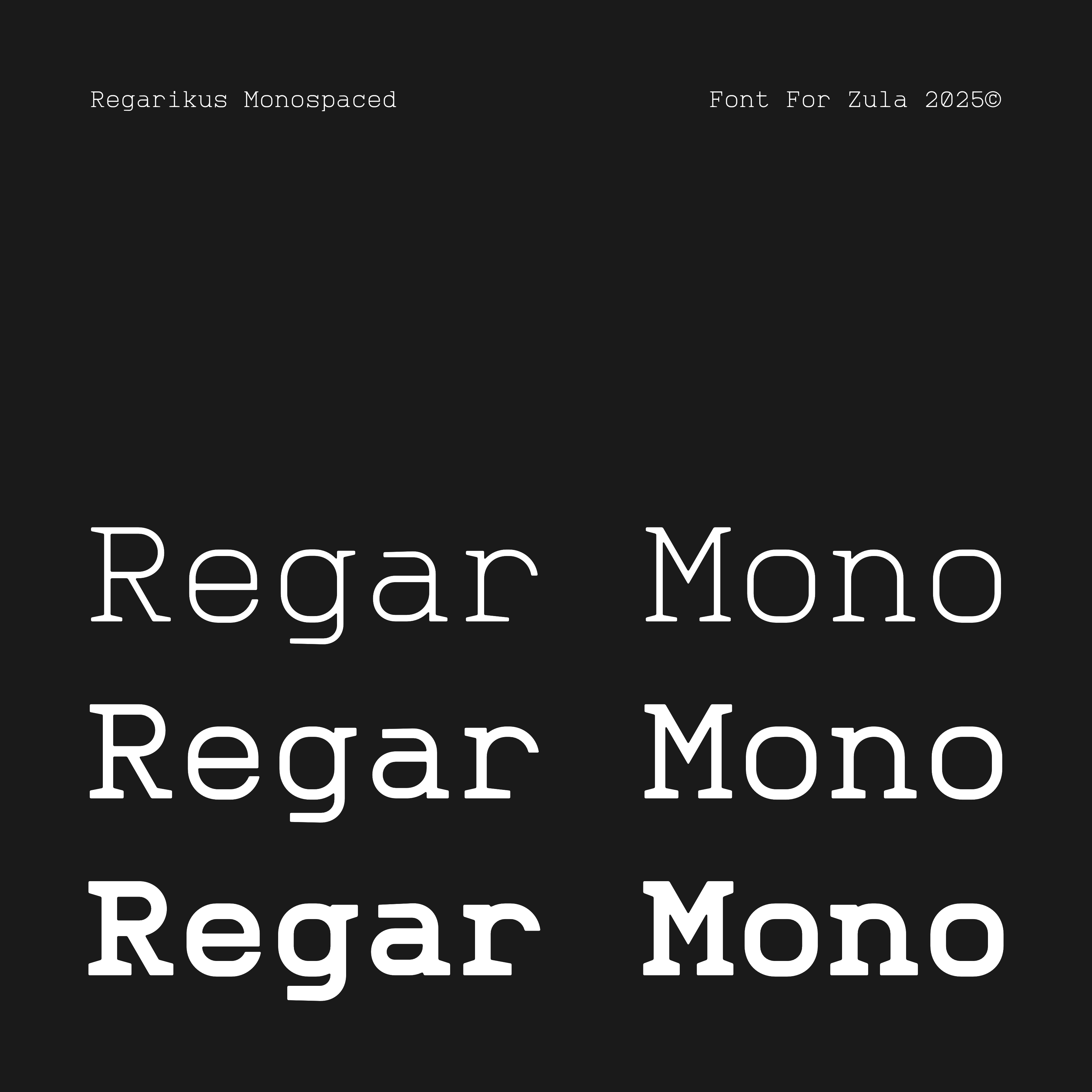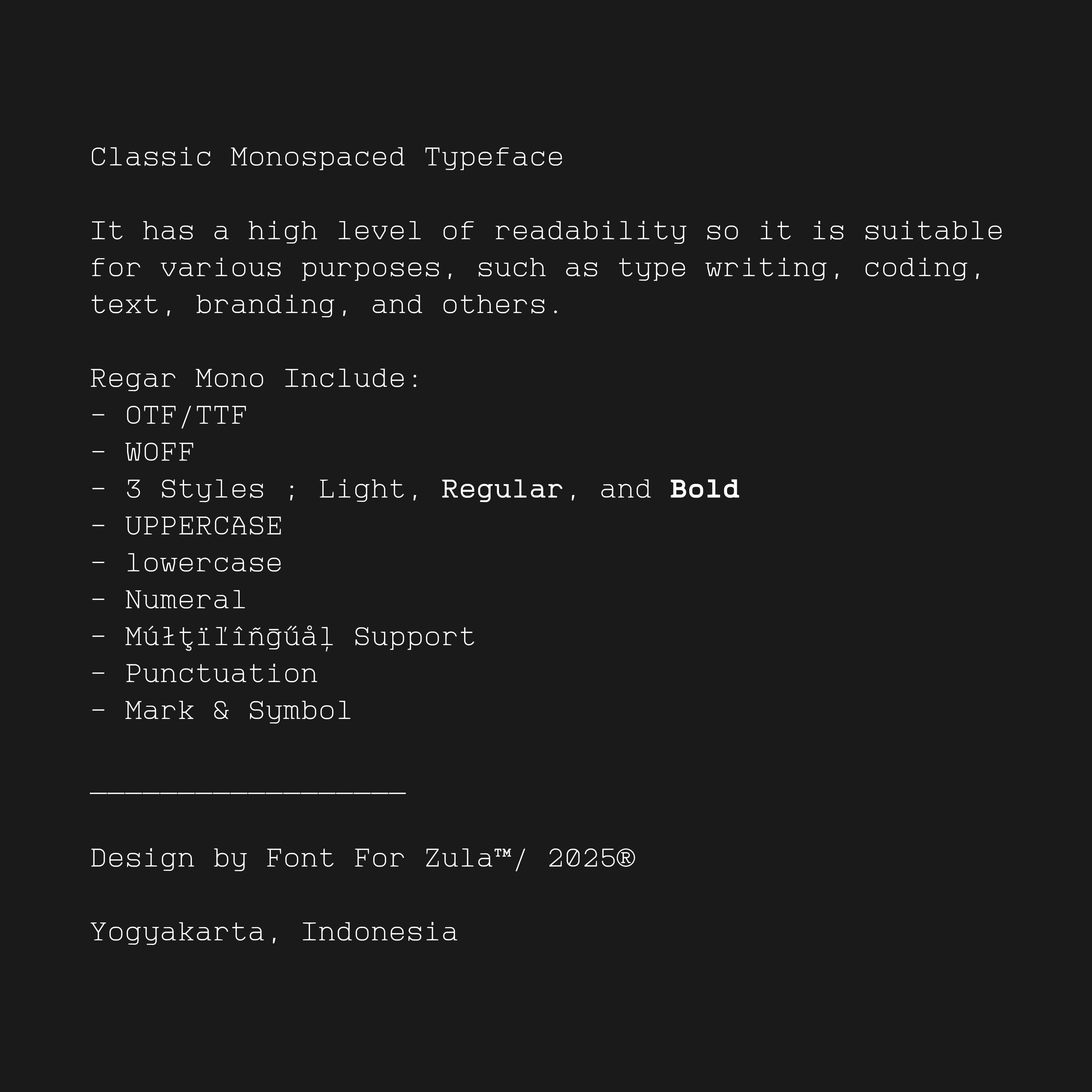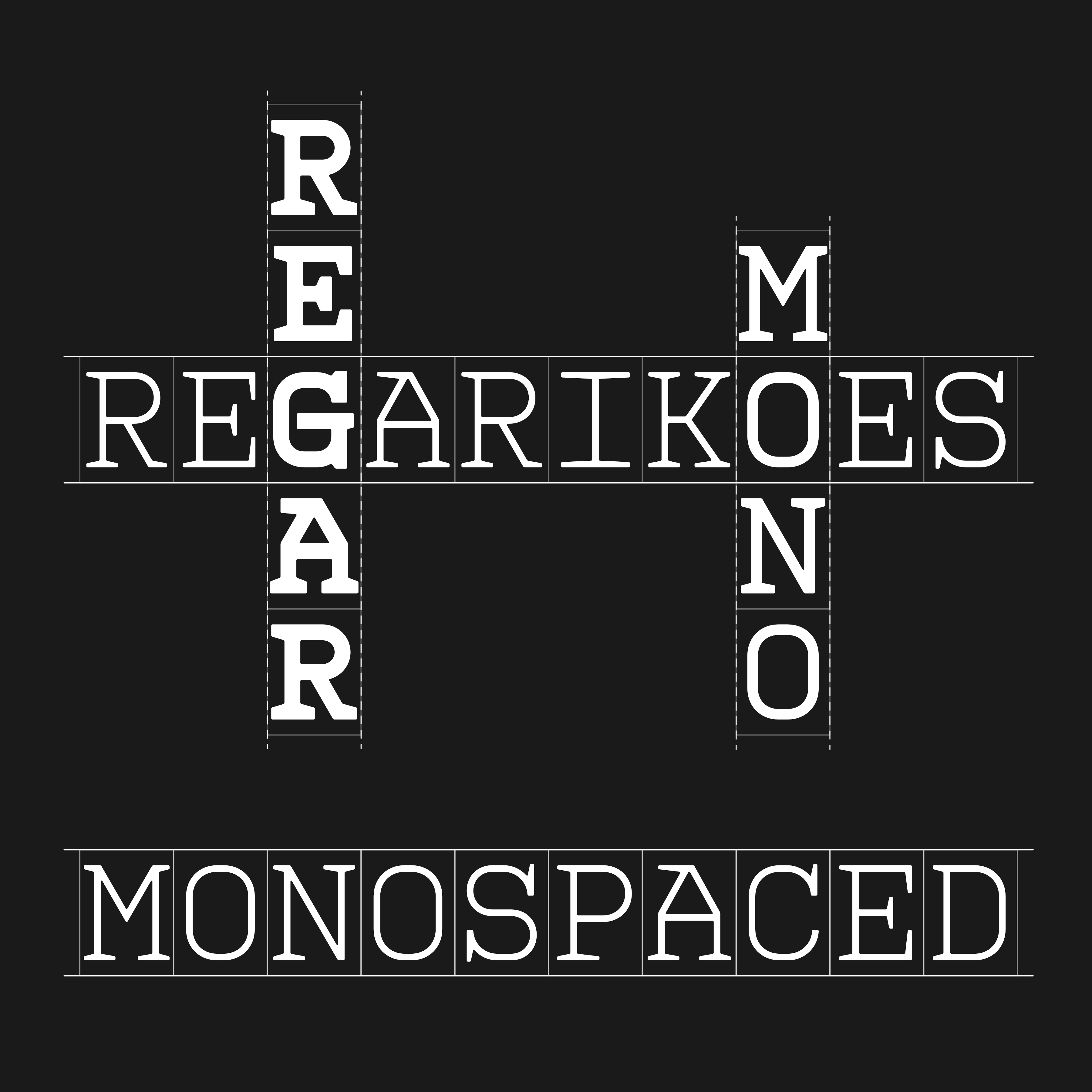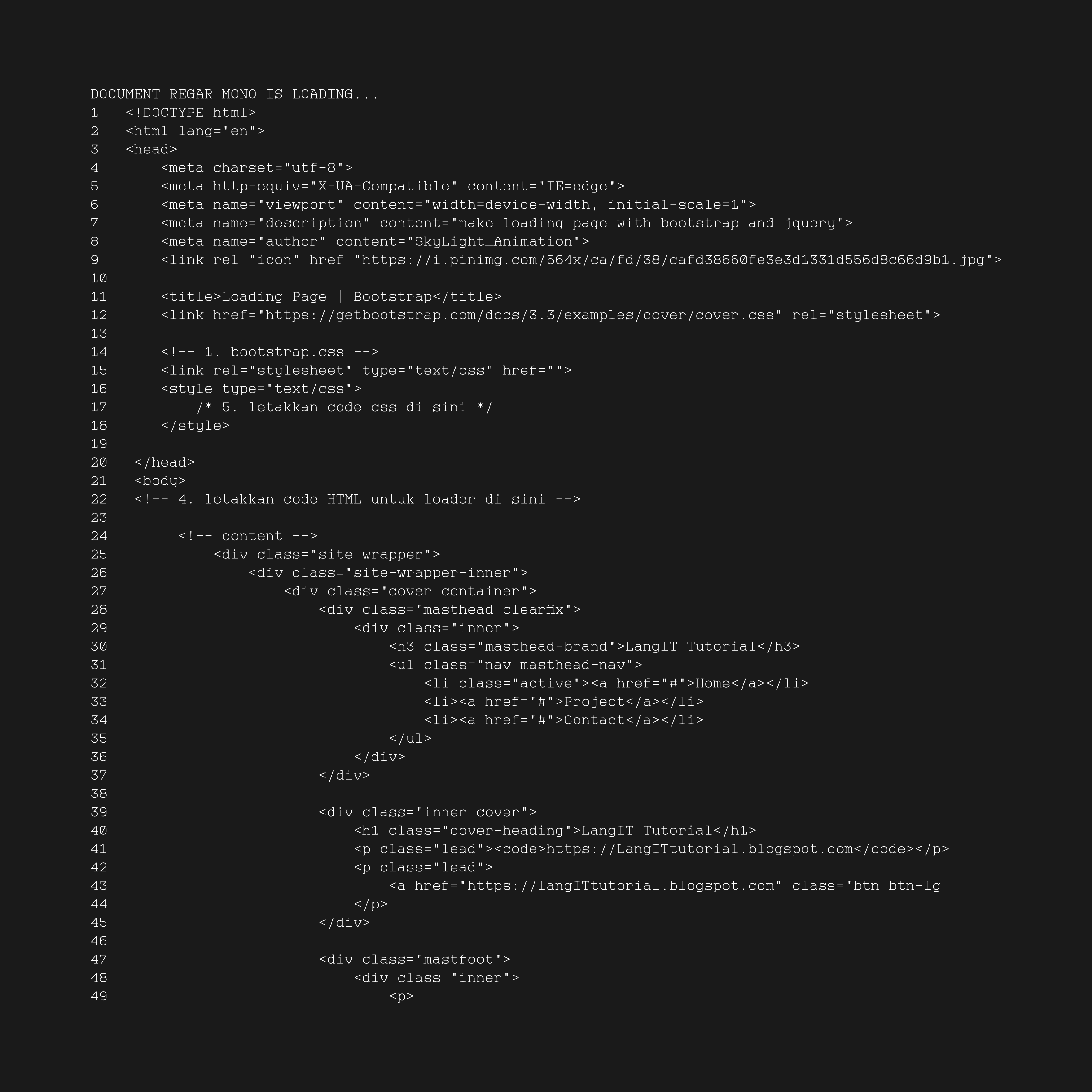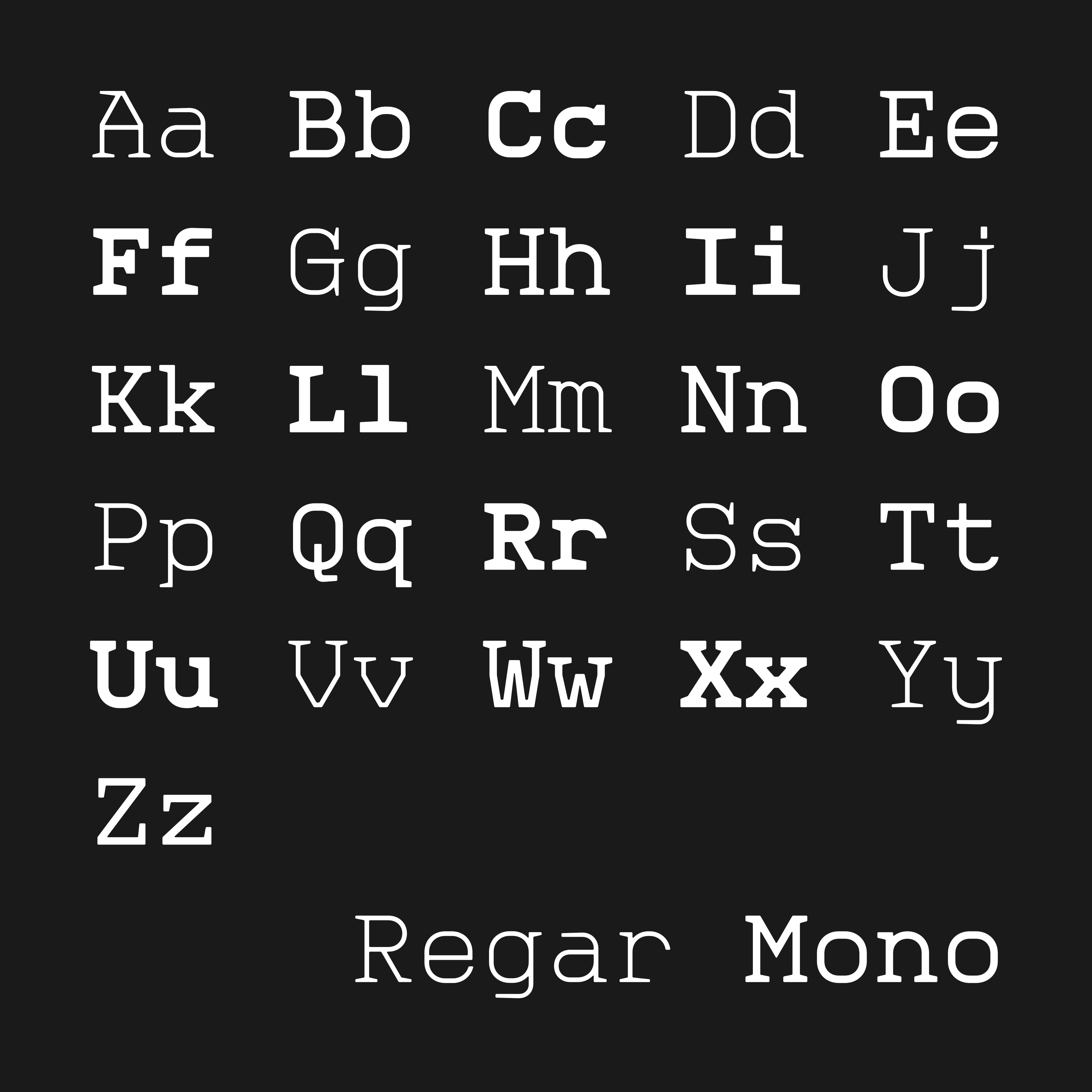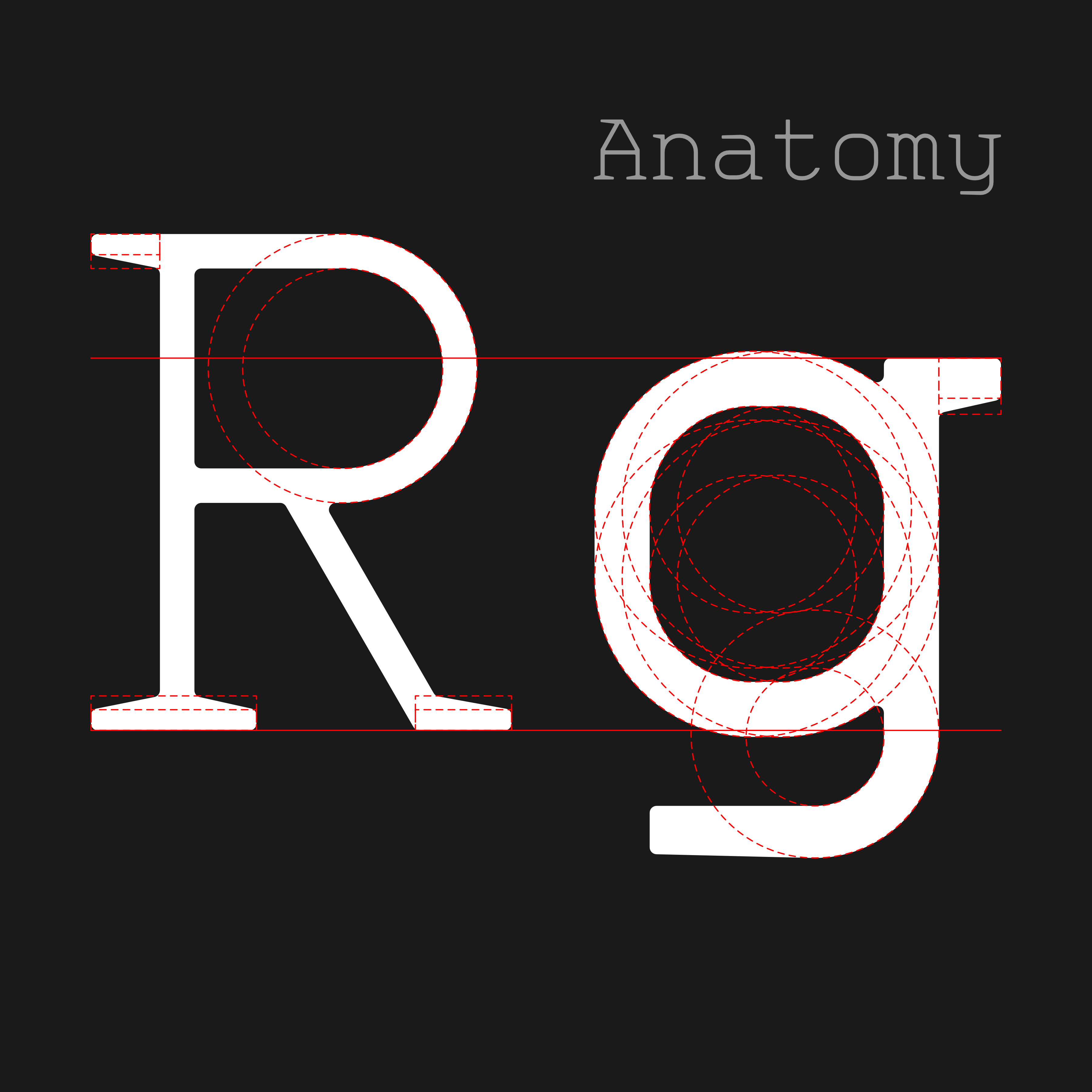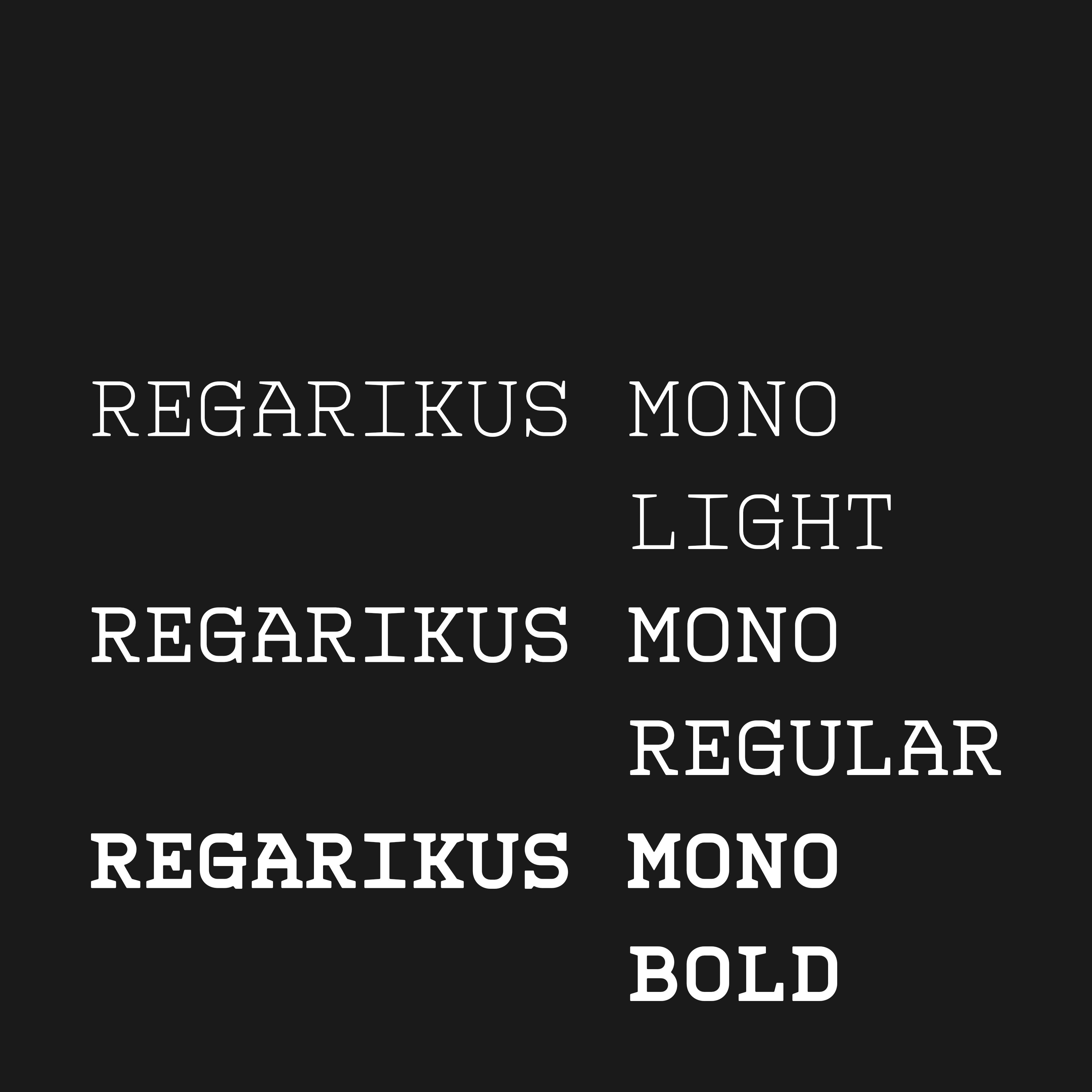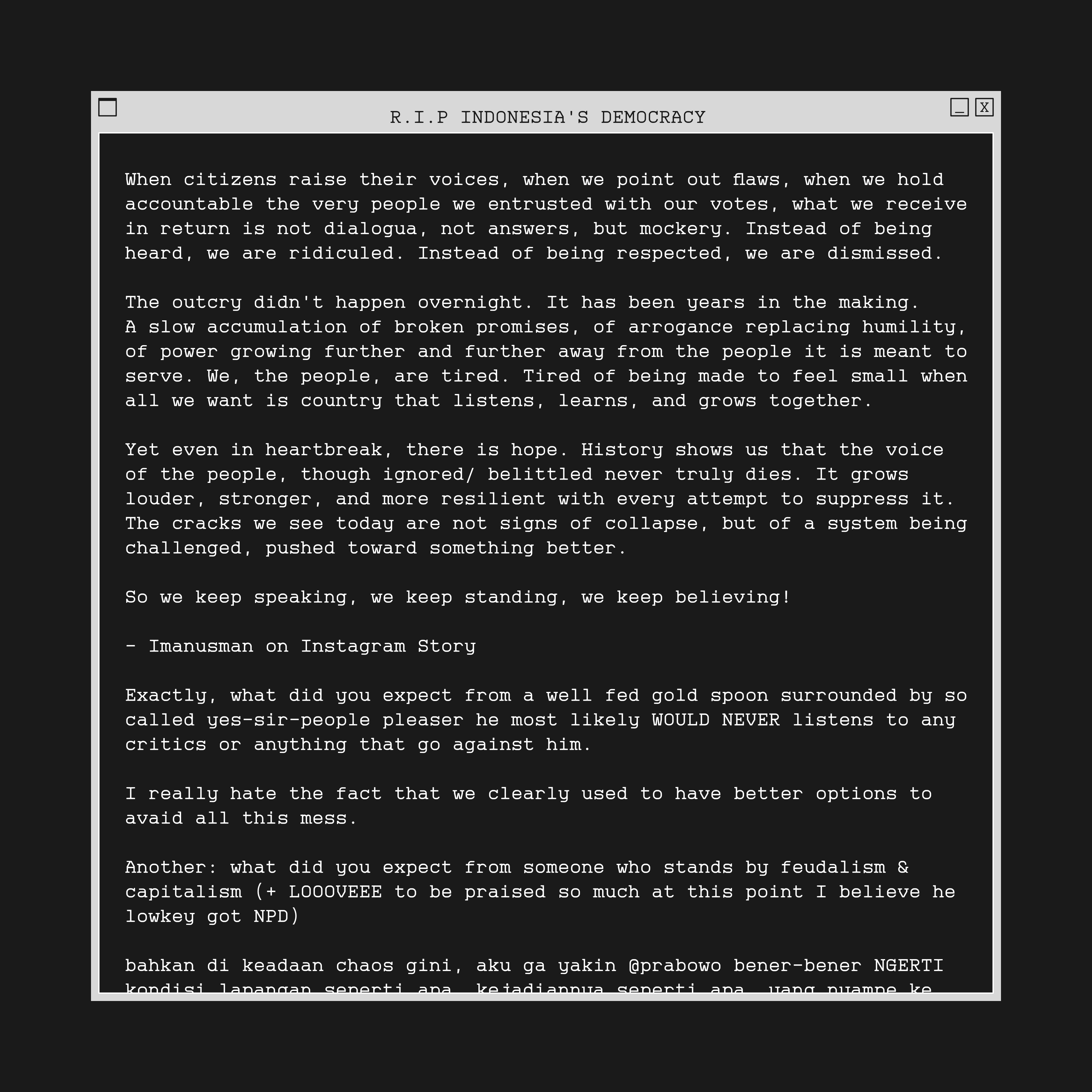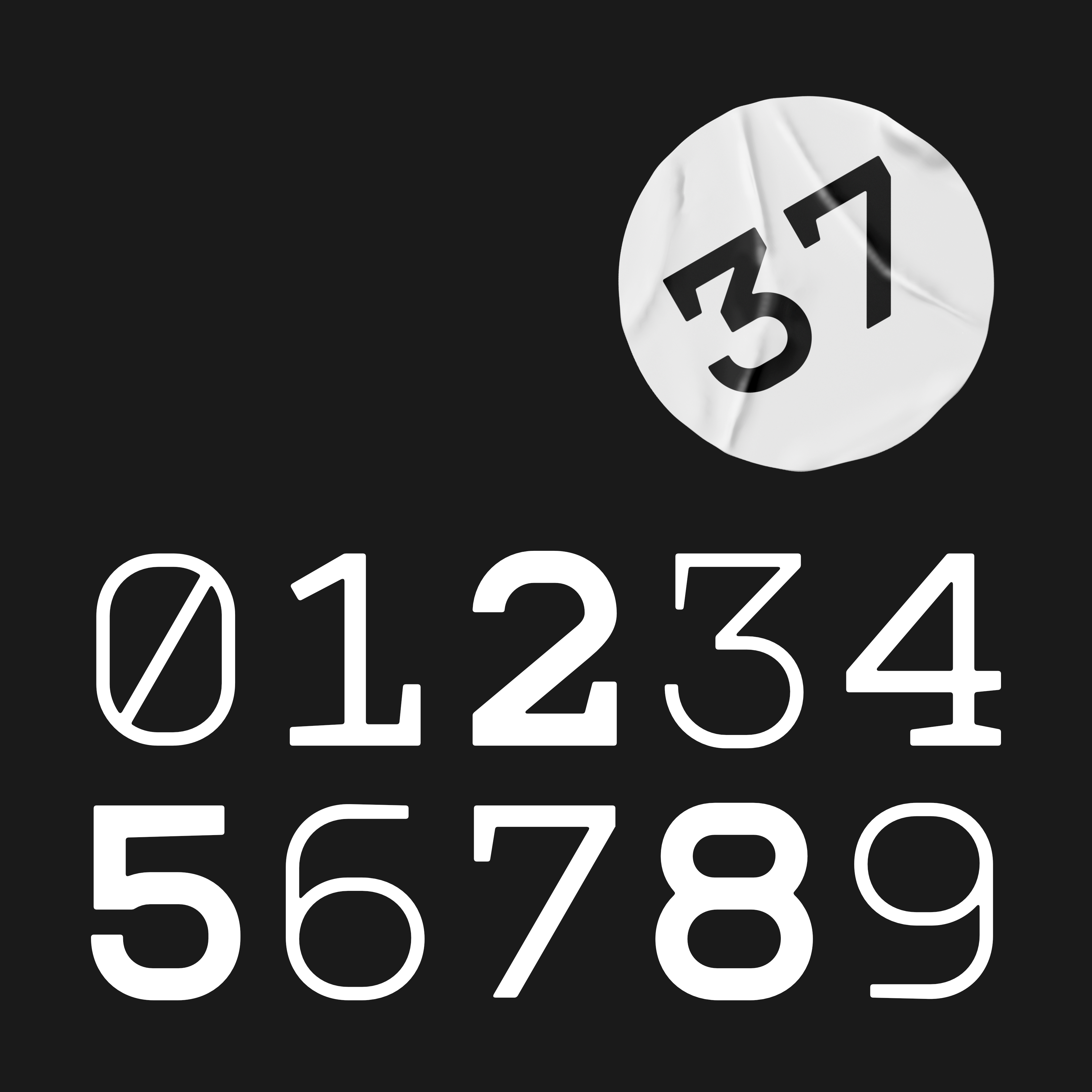
REGAR MONOSPACED FONT FAMILY
Regar Mono | This font was inspired by my friend's in-game nickname ‘Regarikus’. A classic monospaced typeface with high readability, making it suitable for various purposes, such as typing, coding, text, branding, and more. The anatomical shape of the letters in this font consists of symmetrical geometric elements.
- 3 Styles ; Light, Regular, and Bold
- UPPERCASE
- lowercase
- Numeral
- Múłţïľîñḡűåļ Support
- Punctuation
- Mark & Symbol